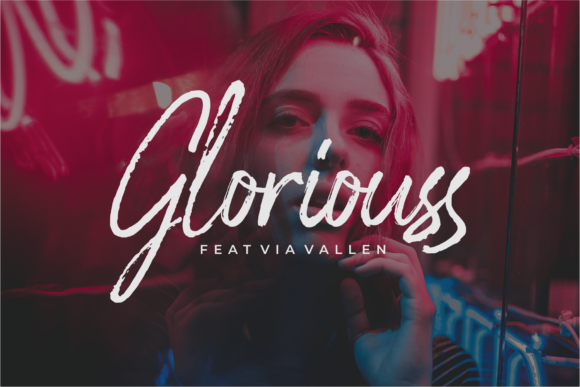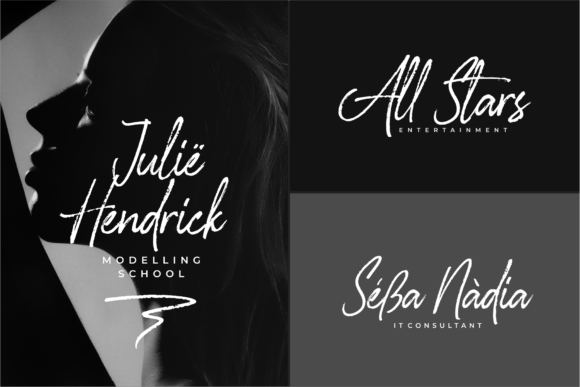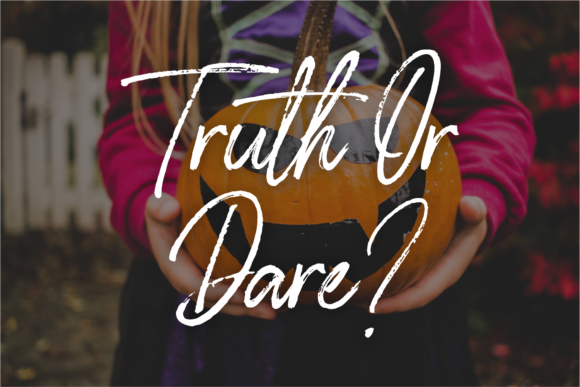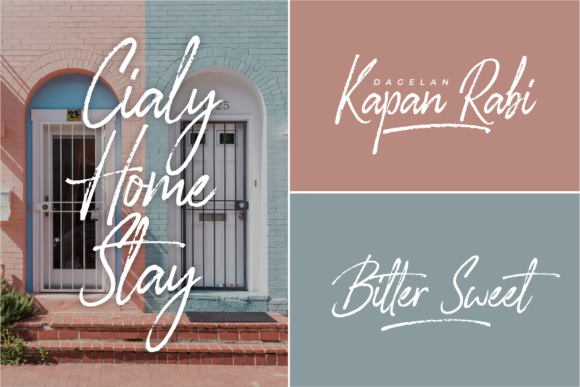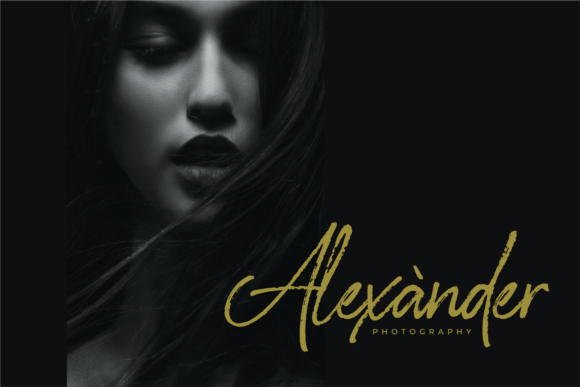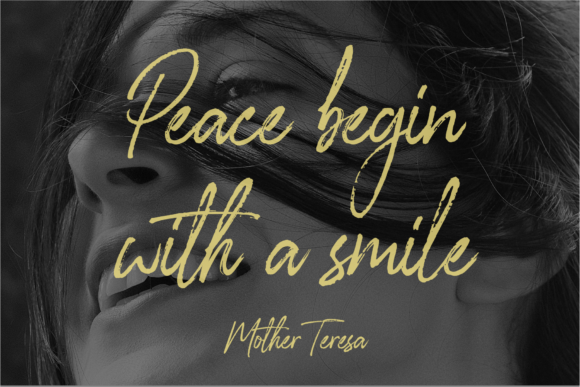
Introduction to Glossy Night Font
Enter the Glossy Night Font, a stunning handwritten font that adds an extra layer of elegance and sophistication to any creative project. With its smooth, high-quality lines and transparent background, this font is a game-changer for designers looking to elevate their work. Whether you’re working on a logo, branding, or simply want to add some flair to your text, the Glossy Night Font is sure to deliver.
Key Features of Glossy Night Font
- High-quality design resource with a unique, glossy effect suitable for creative projects.
- Perfect for designers working on creative projects, including magazine layouts, posters, and digital graphics.
Honest Review: Glossy Night Font
I recently had the chance to work with the Glossy Night Font, and I must say, it’s been a game-changer for my creative projects. This design resource has been a lifesaver, especially when I need a high-quality font with a transparent background.
Here’s what I love about the Glossy Night Font:
- ✨ High-quality design: The font is crisp, clear, and visually appealing, making it perfect for any creative project.
- ⚠️ Limited font styles: While the font is high-quality, it’s limited to a few styles, which might not be enough for more complex designs.
- ⚠️ Not suitable for all backgrounds: The transparent background can sometimes make the font difficult to read on certain backgrounds.
Overall, I’m really impressed with the Glossy Night Font. It’s a great addition to my design resources, and I would definitely recommend it to fellow designers. With a little creativity, I’ve been able to work around its limitations and create stunning designs. Give it a try, and see what you can create with this amazing font!”
Tips for Getting the Most Out of Glossy Night Font
For optimal results, use Glossy Night Font in conjunction with a high-quality image or graphic. Experiment with different font sizes and styles to achieve a unique look. You can also use the font in combination with other design elements, such as shapes or icons, to create a cohesive design.
Common Use Cases for Glossy Night Font
Glossy Night Font is ideal for creative projects, such as wedding invitations, business cards, or social media graphics. It’s also a great choice for designers who need a high-quality font with a transparent background for their designs.